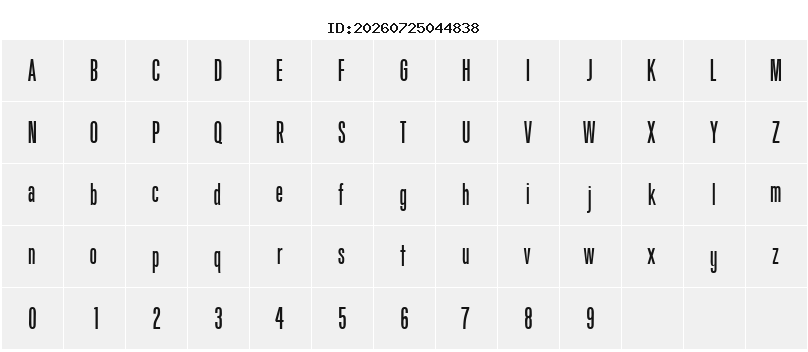
Goodge DB Preview
About Goodge DB.ttf
Goodge DB.ttf is a modern, elegant sans-serif font designed for ultimate readability and visual harmony. Perfect for branding, headlines, web design, and print materials.